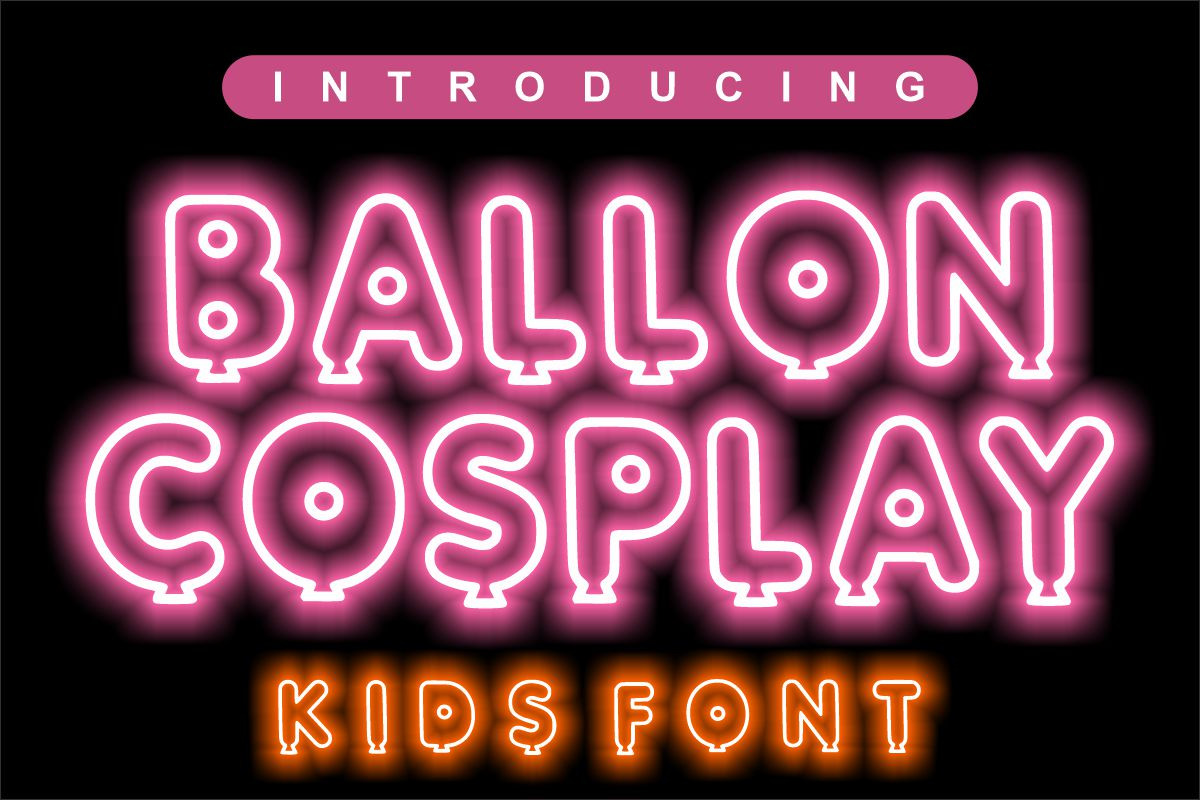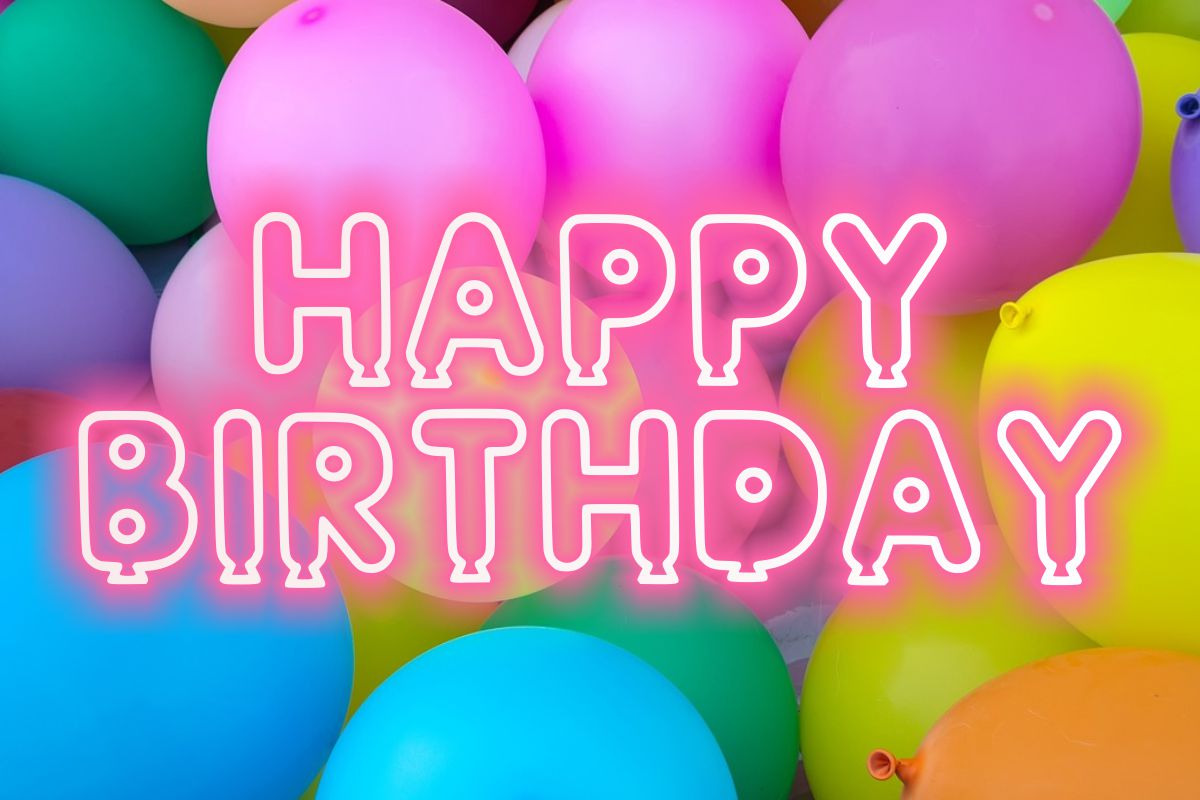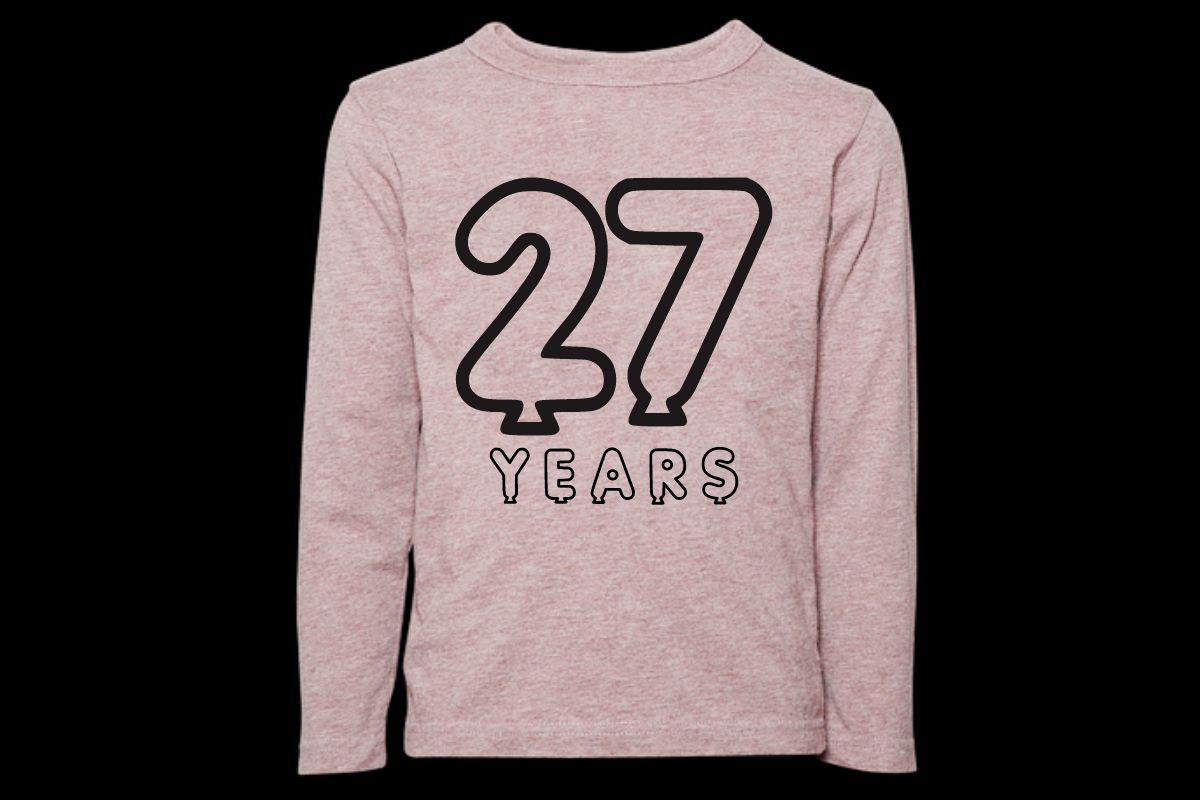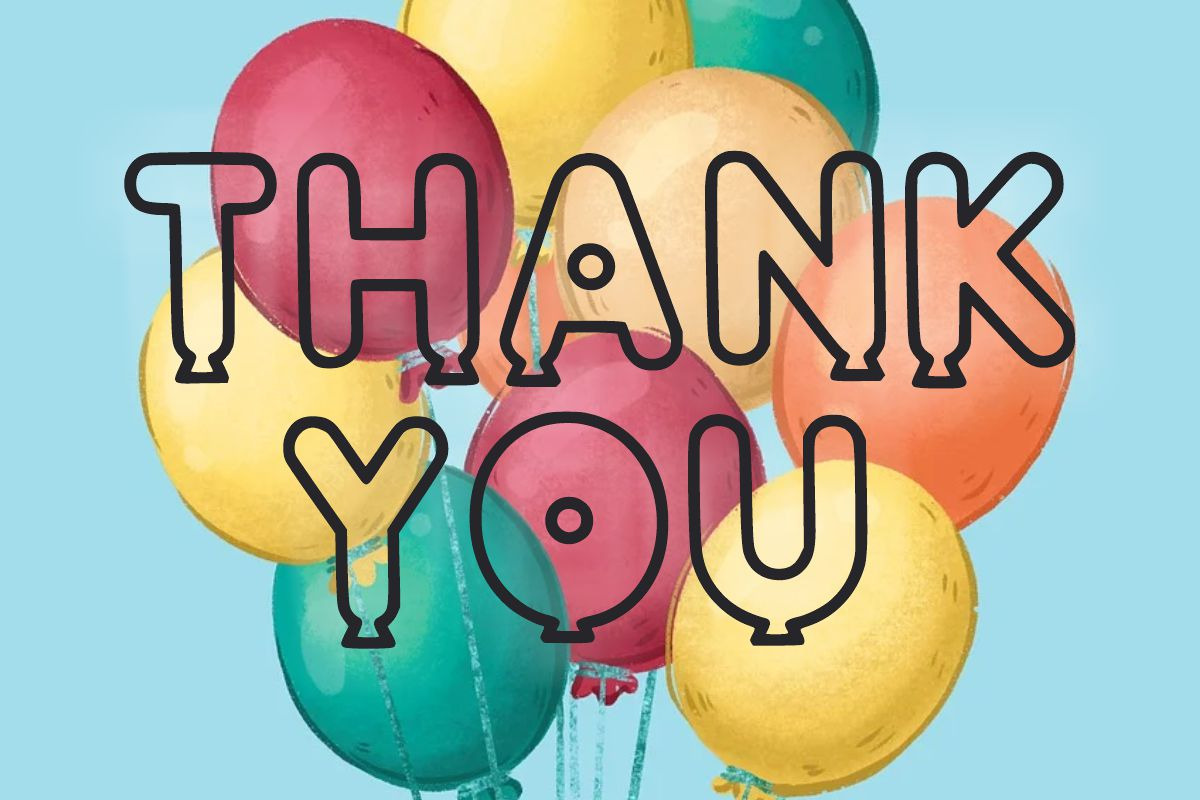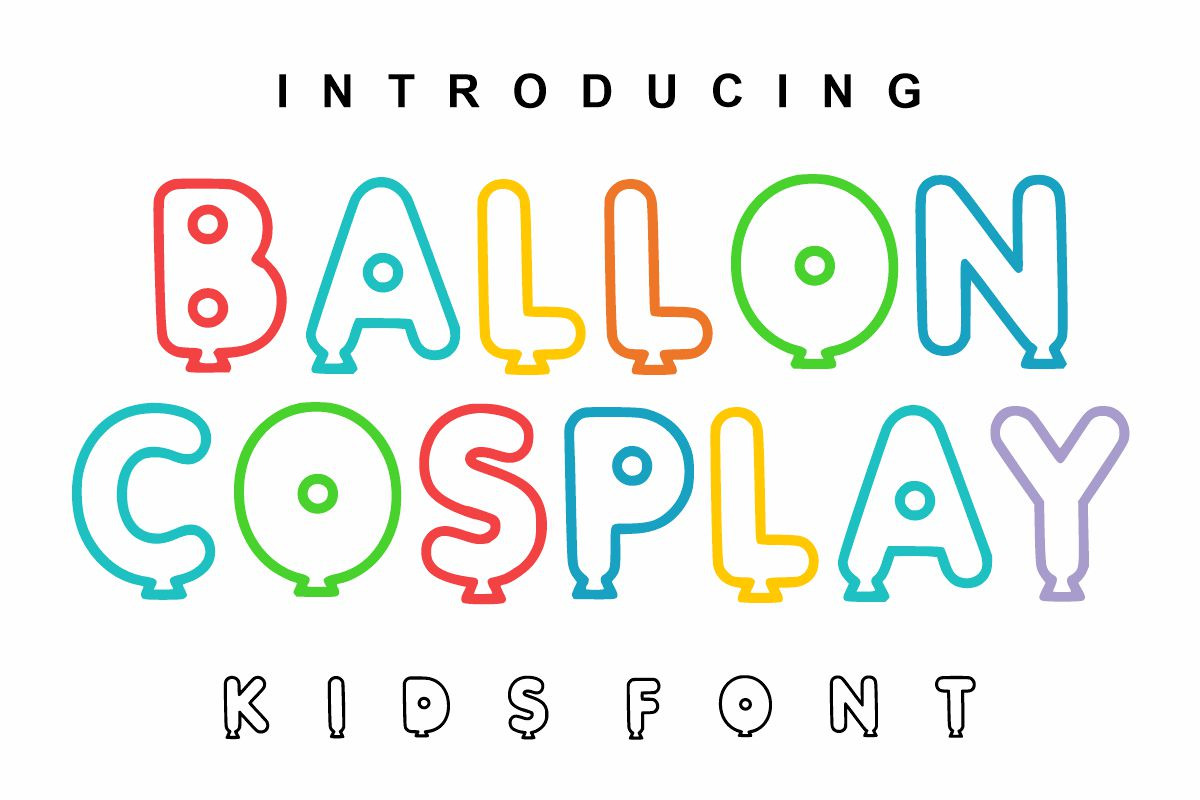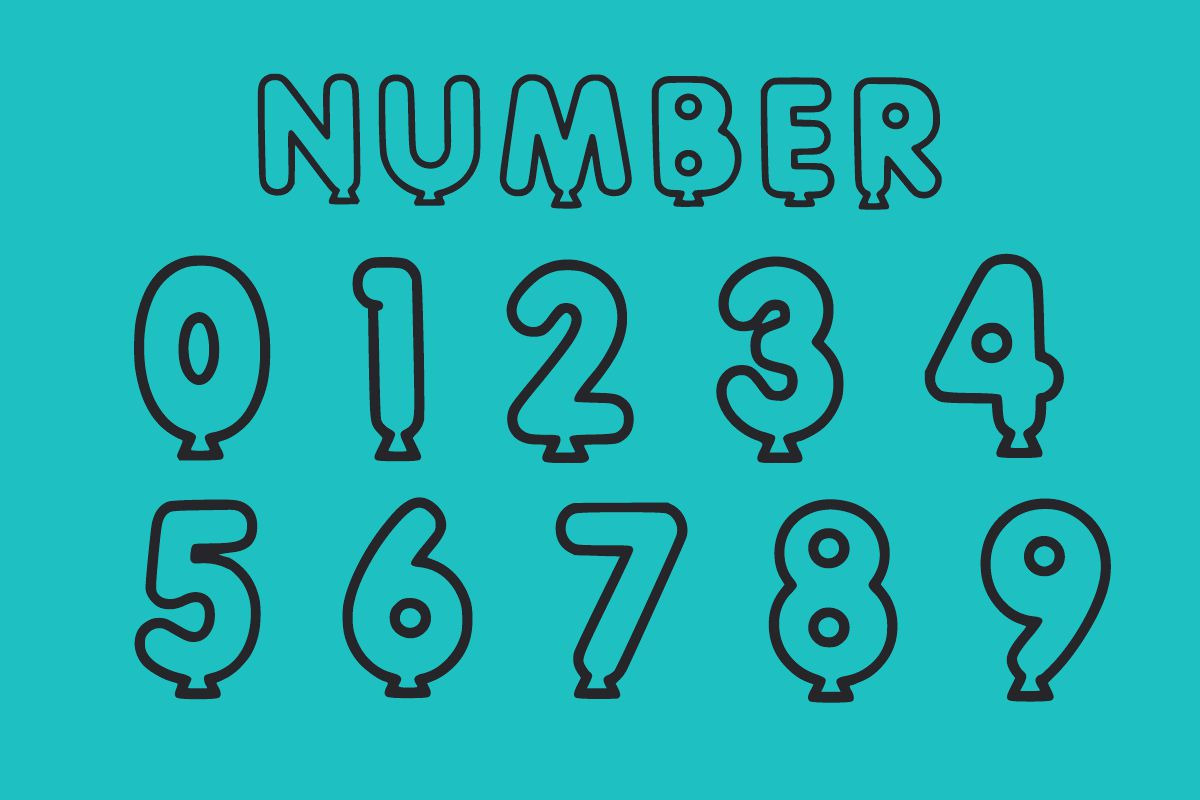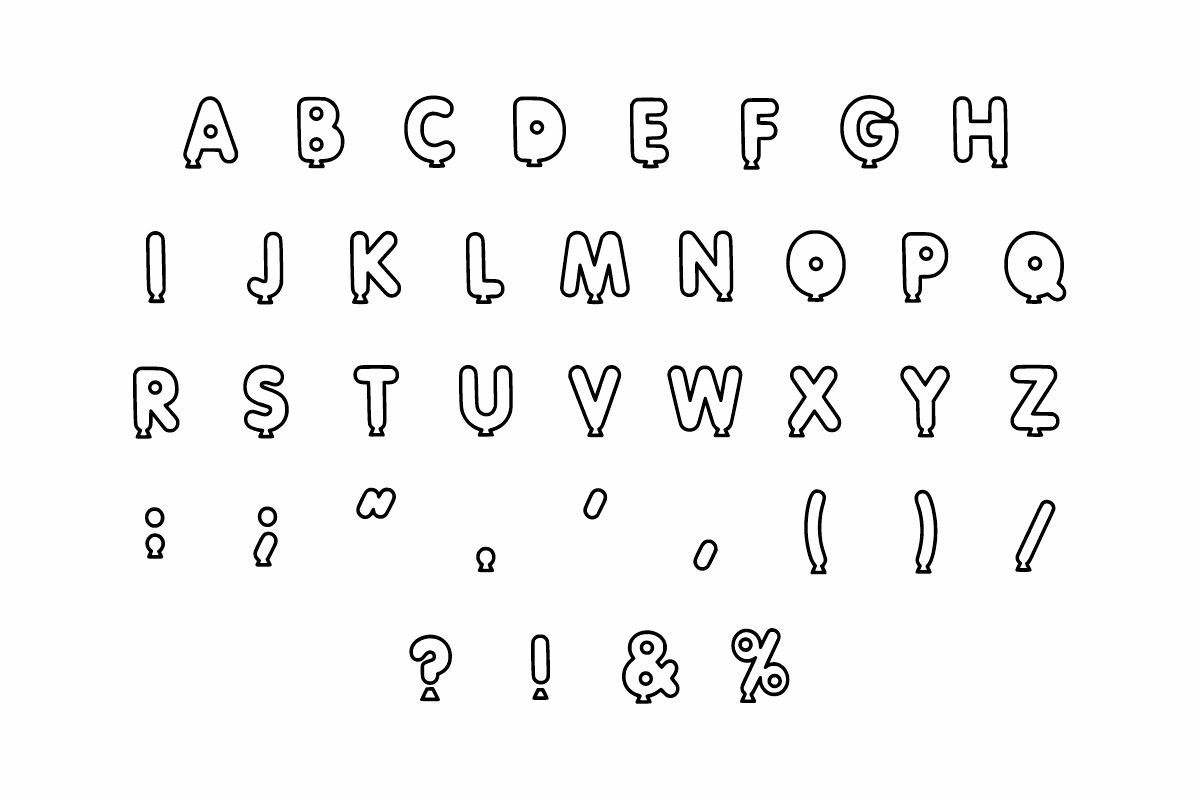
BALLON COSPLAY - PLAYFULL FONT
Ballon Cosplay is a colorful, Bold, and childish, easy-to-read display font that conveys impeccable friendliness. Whether you’re using it for crafts, digital design, presentations, or greeting cards, this font has the potential to become your favorite go-to font, no matter the occasion!